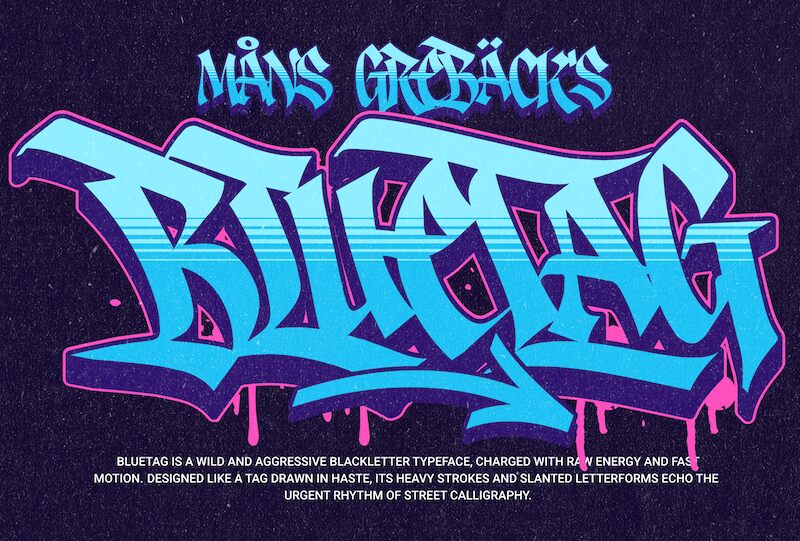
Bluetag font
Bluetag
Bluetag is a wild and aggressive blackletter typeface, brimming with raw energy and dynamic motion. The angular extensions and razor-sharp terminals create an impression of movement, making it seem as though each character is slicing through the air.